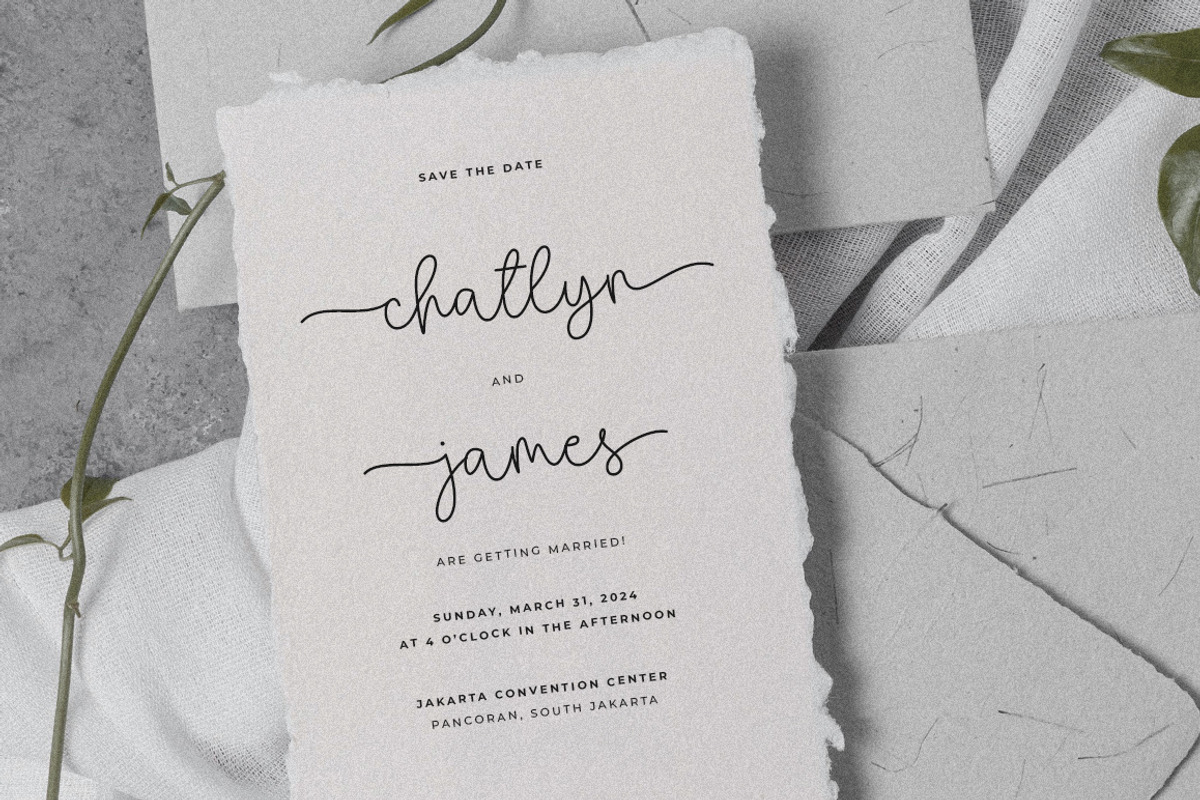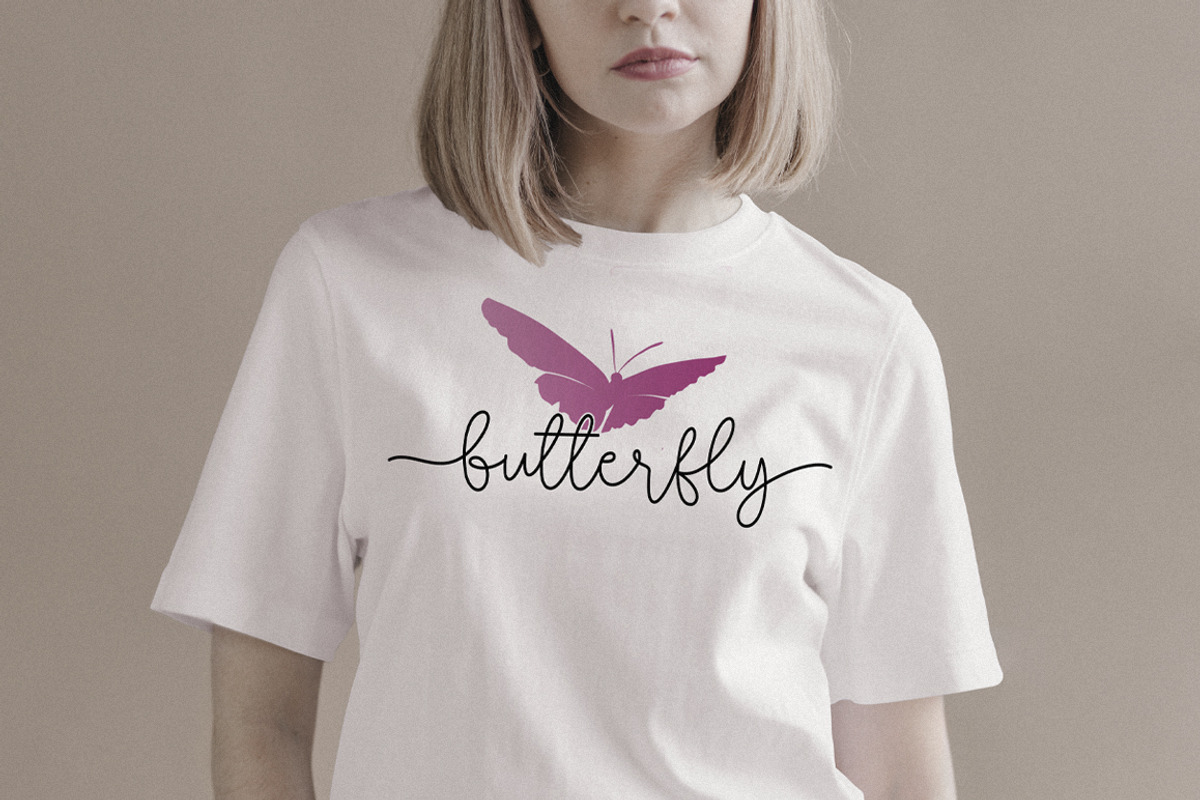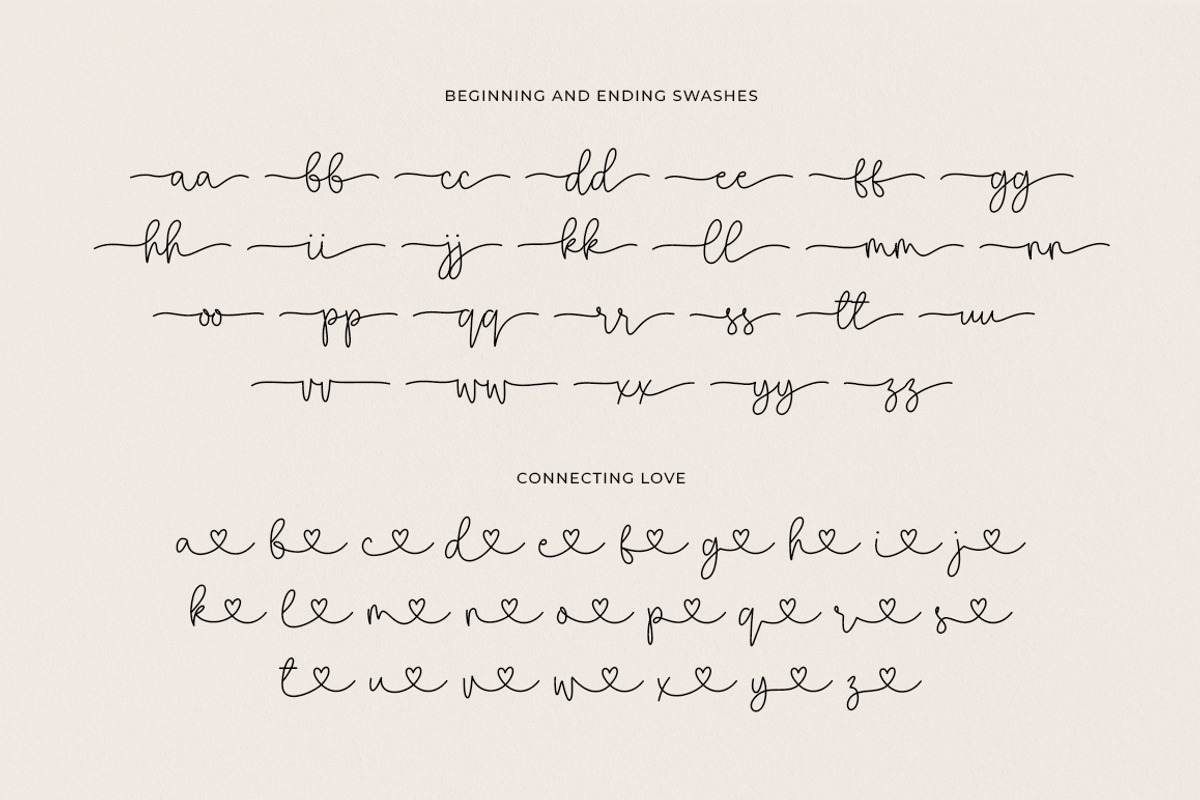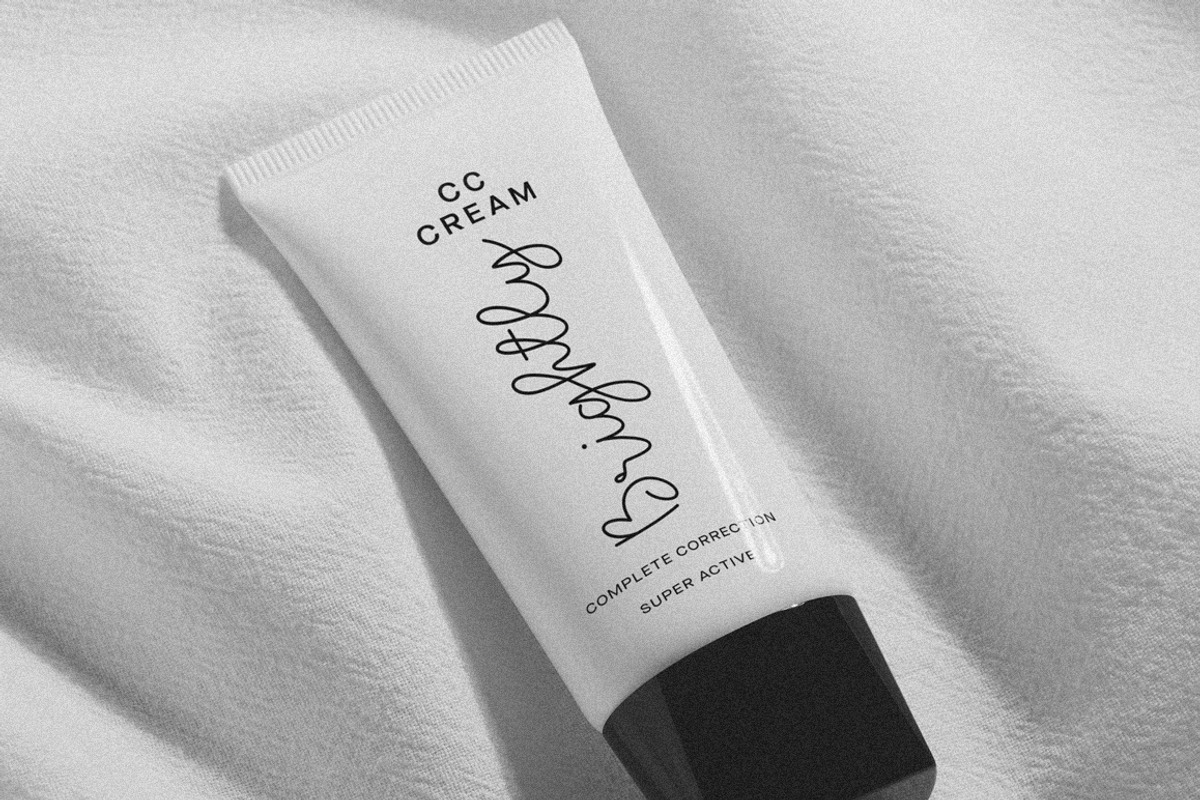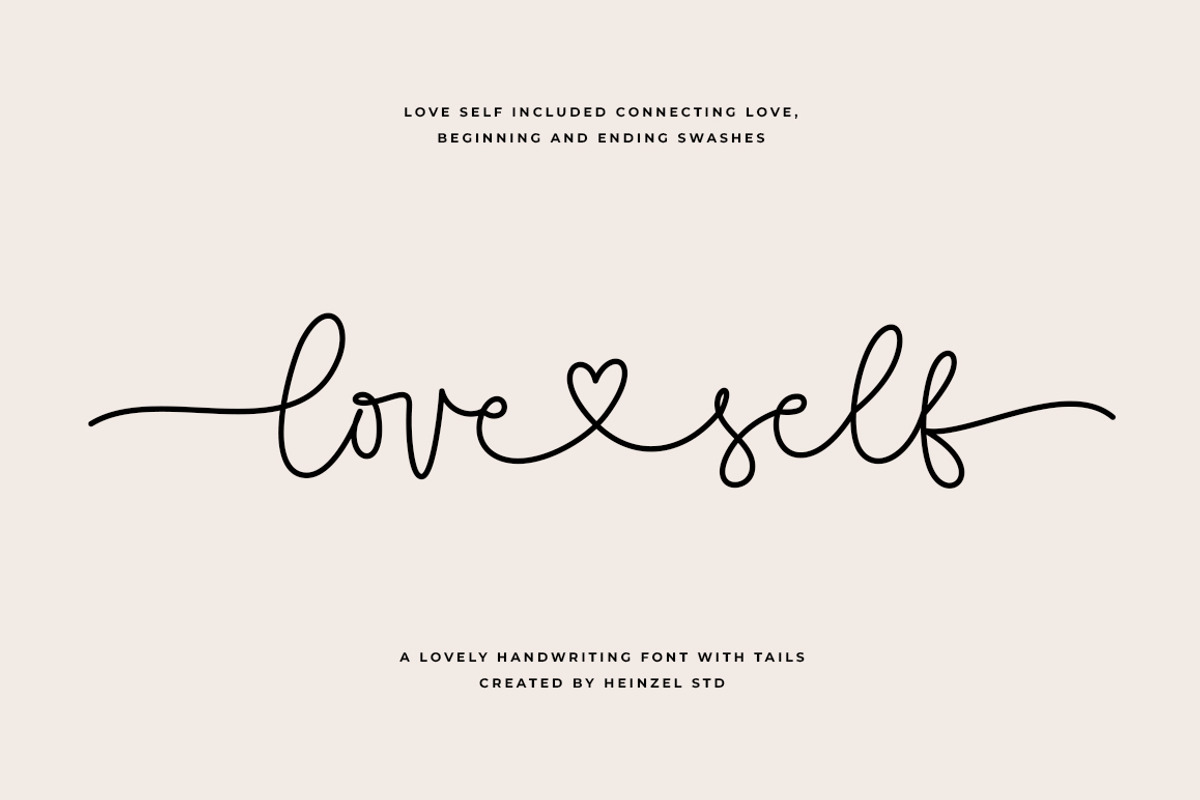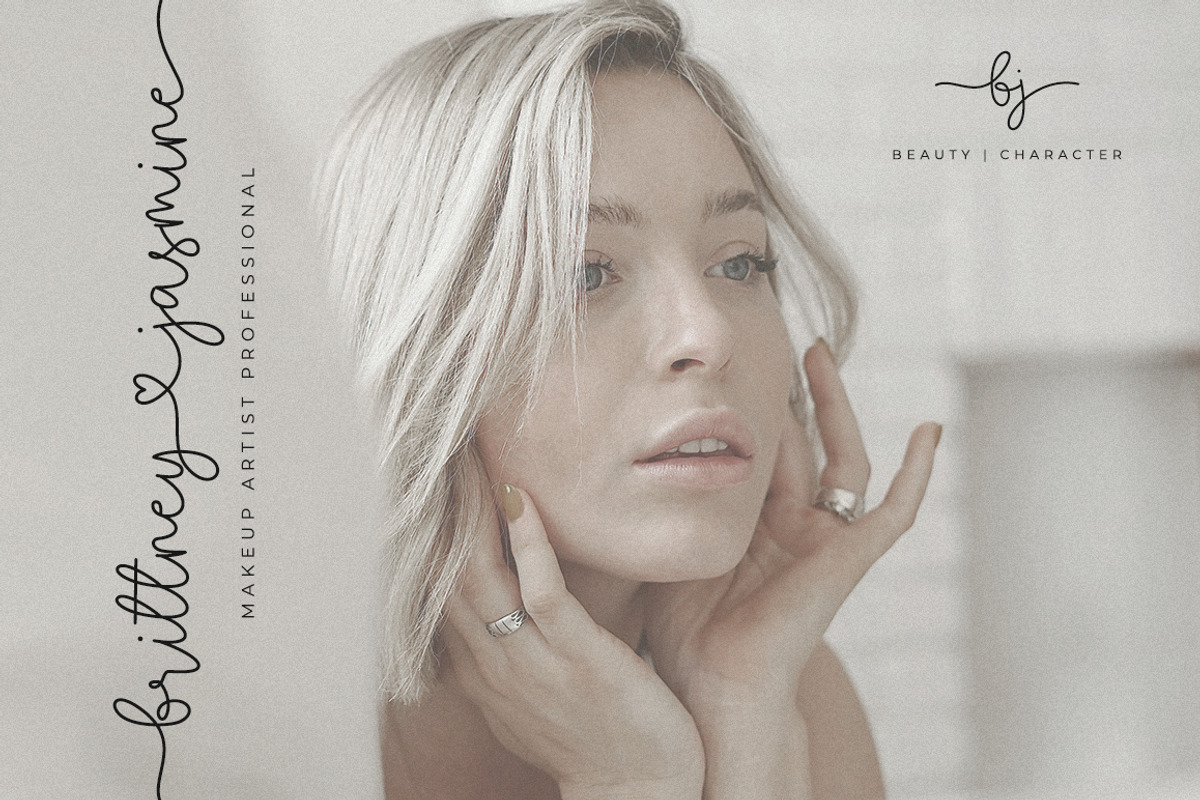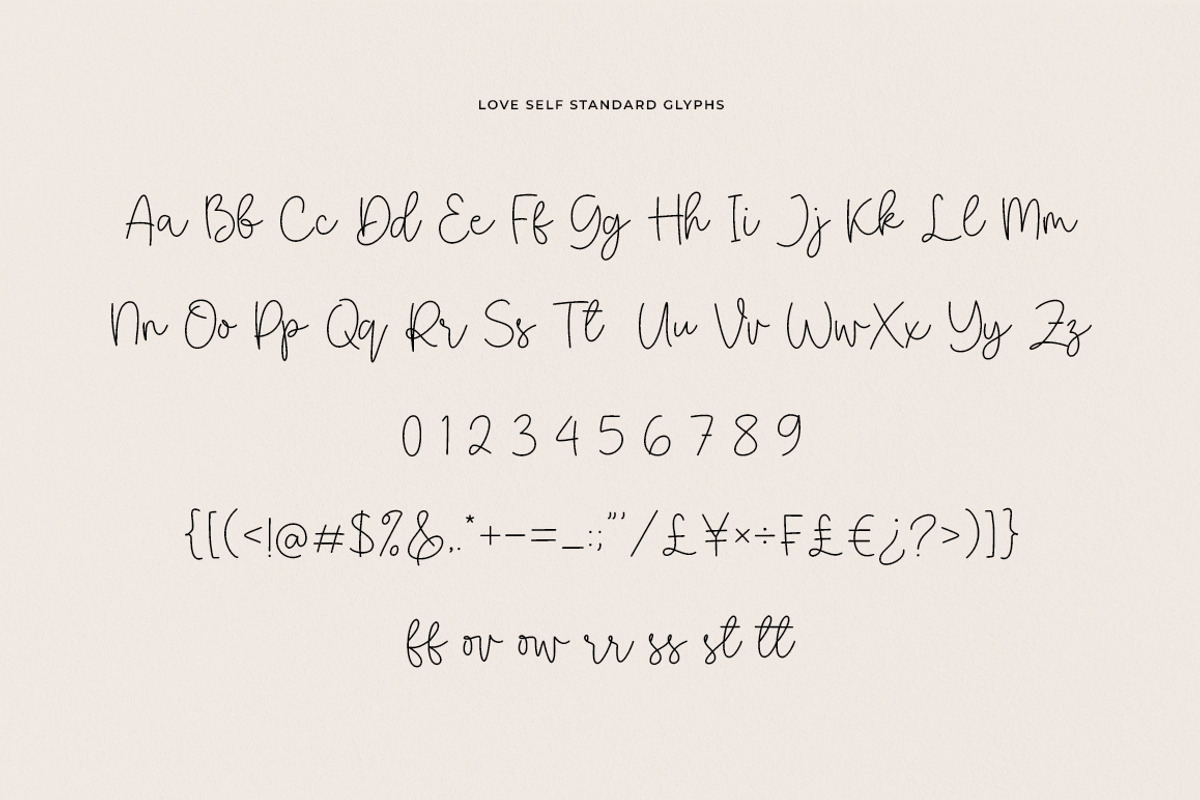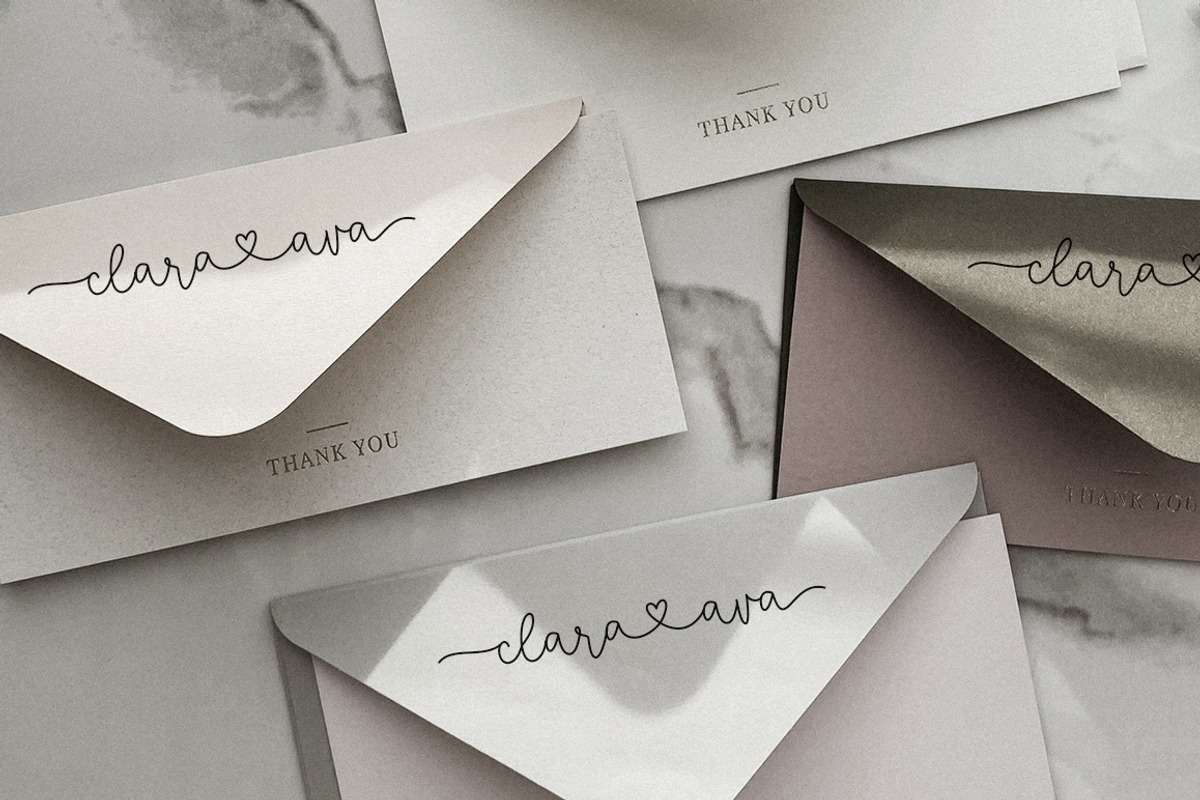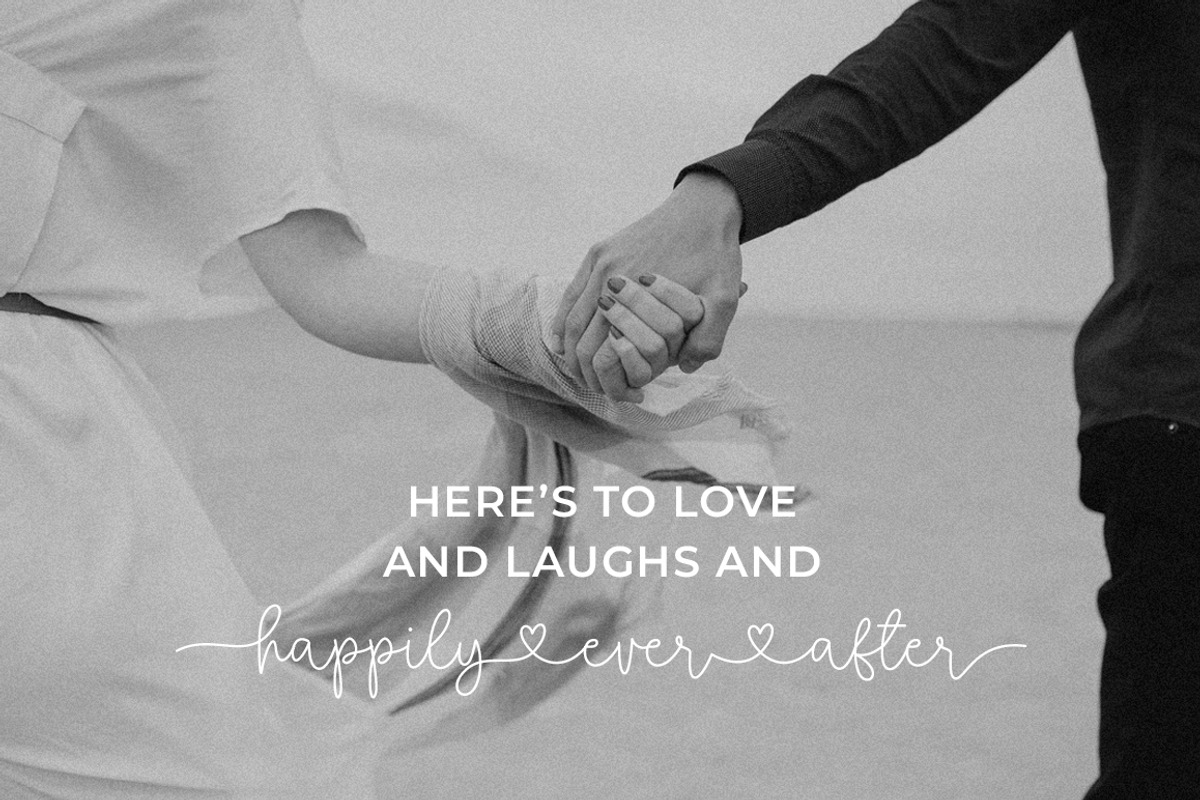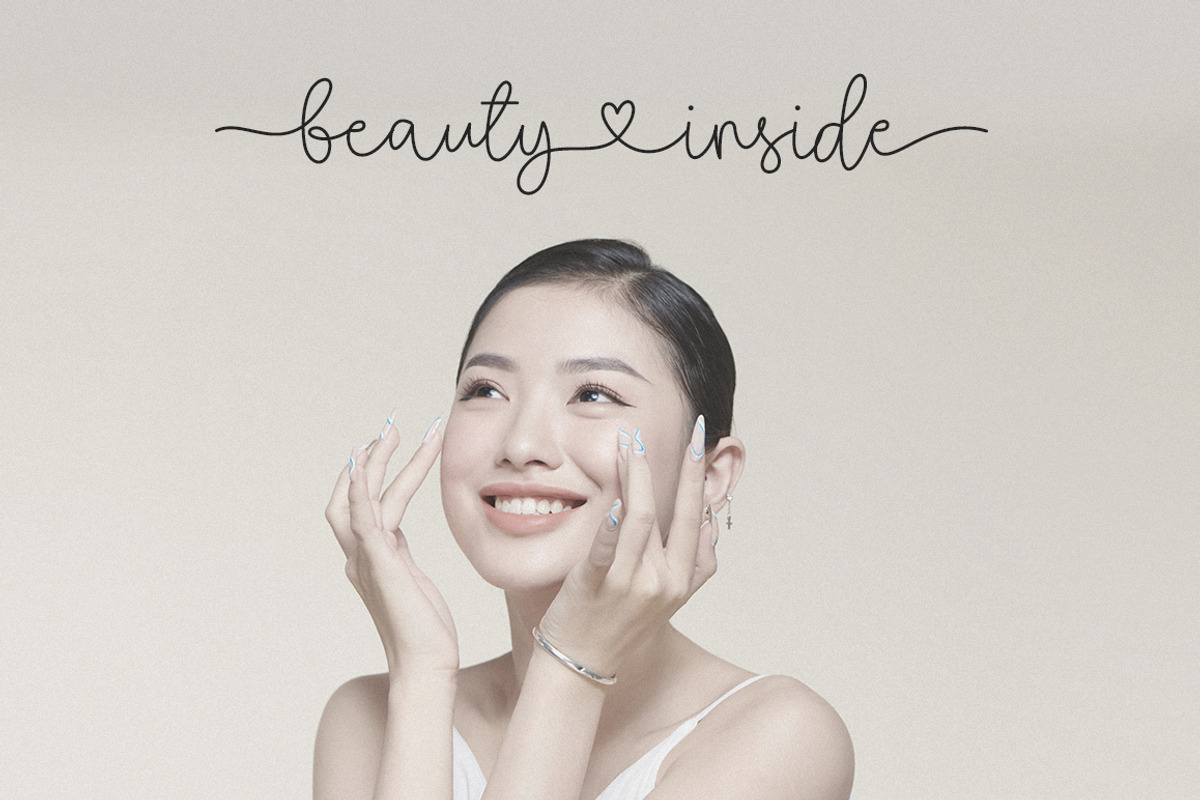
Love Self | Lovely Script Font
Introducing Love Self, a lovely script font that bewitches with its delicate strokes and elaborate swashes. This beautiful typeface features lavish beginning and ending strokes that add an air of refinement and romance to any text. Whether for wedding invitations, branding, inspiring quotes, or engaging social media posts, Love Self Font provides a timeless allure that enchants the viewer. Its dynamic nature and aesthetic appeal make it an invaluable tool for designers who aspire to infuse their creations with a dash of opulence and grace. Experience the captivating charm of Love Self Font, and let your designs speak the language of elegance.
Love Self Features:
- Regular Version
- Numerical and Punctuation
- Beginning and Ending Swashes
- Connecting Love
- Multilingual Language
This character set supports the following 21 languages: Afrikaans, Basque, Breton, Catalan, Danish, Dutch, English, Finnish, French, Gaelic (Irish, Scots), German, Icelandic, Indonesian, Irish, Italian, Norwegian, Portuguese, Saami (Southern), Spanish, Swahili, Swedish.